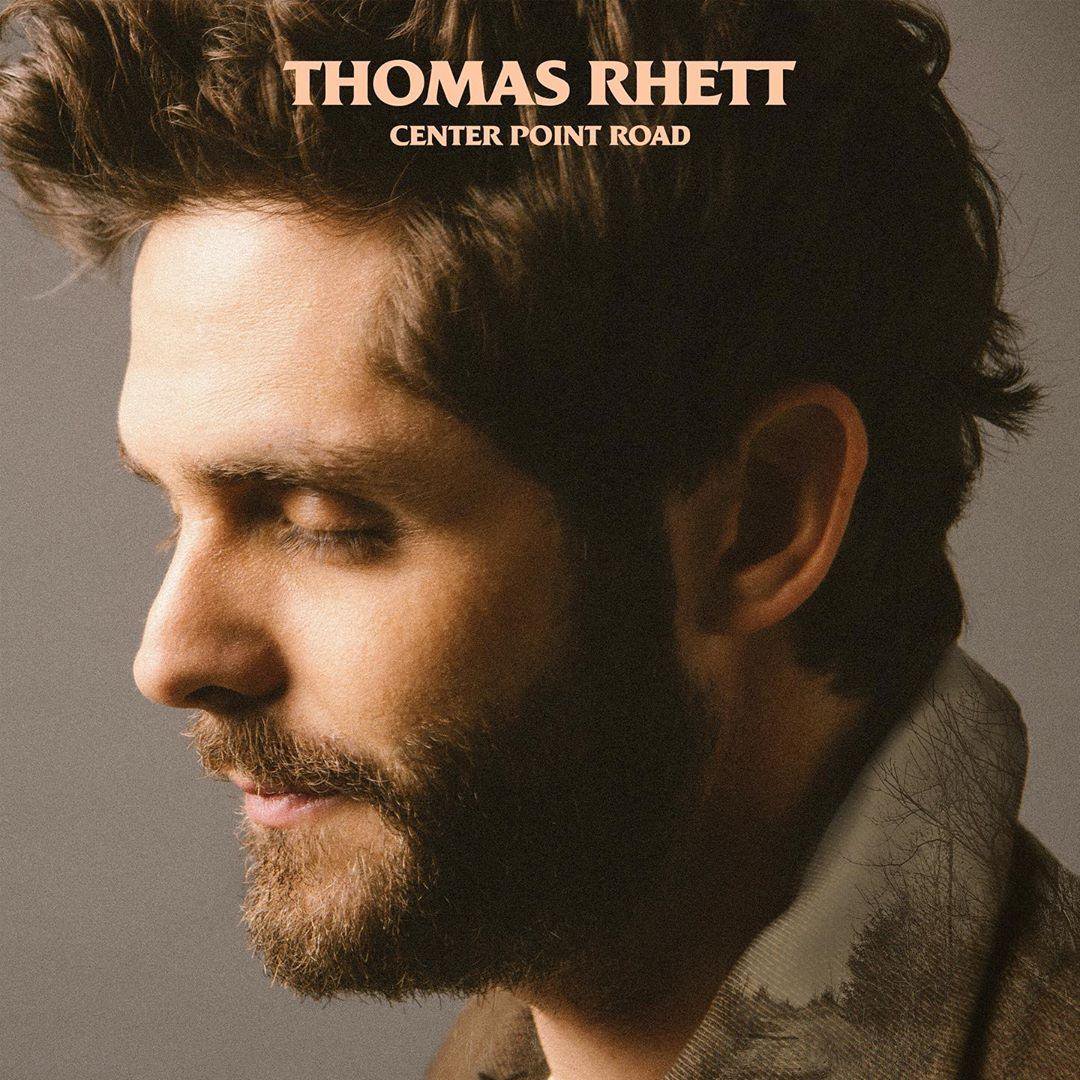
Center Point Road Font
CountryCenter Point Road is a country music album released by artist Thomas Rhett in 2019, featuring hit singles such as "Remember You Young" and "Look What God Gave Her."
The cover art of the album showcases the artist's name and the title of the album in capital letters, using the Friz Quadrata Bold font. This font was created in 1965 by Ernst Friz, known for its flared serifs and unique M vertex.